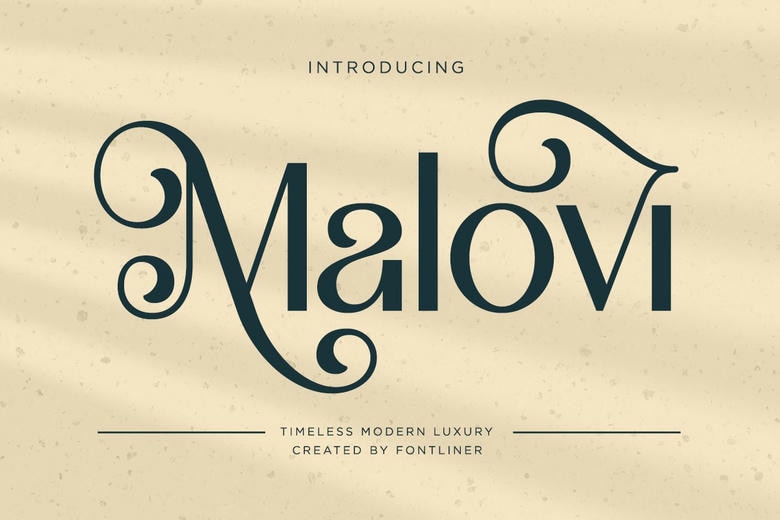
Malovi Font
Malovi is an eternal contemporary luxury serif that is meant to add some beauty and sophisticated nature to visual projects of high standards. Courtesy of classic beauty with a modern touch, Malovi has graceful curves, decorative swashes and sophisticated letterforms that would immediately give any design the touch of sophistication.
Designed to suit designers working in the fashion, branding, and editorial arena, Malovi has the perfect blend of style and readability to the designer. The attractive ligatures and stylish features of its design suit it well in logos, magazines, invitations, beauty branding designs, and high-quality marketing materials that require a luxurious feel.
Headlines, branding identities or high-impact display typography: Malovi delivers a confident and exclusive experience. The font is designed in such a way that it allows your work to shine in competitive creative markets and remain timeless and professional at the same time.
Malovi Serif Font